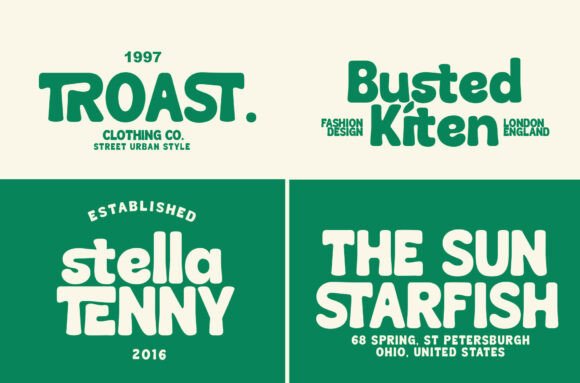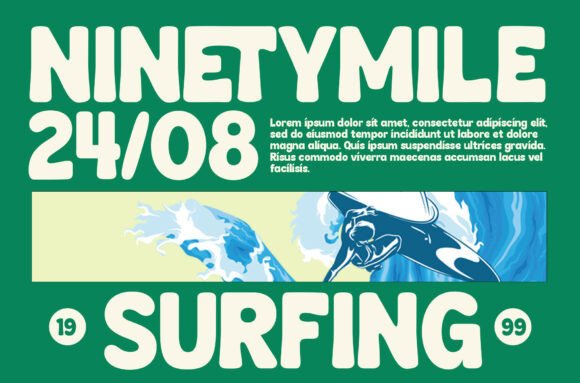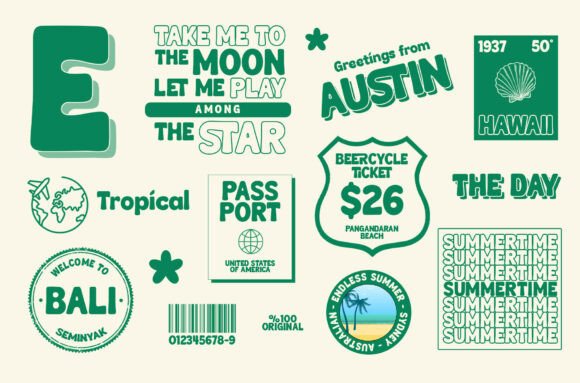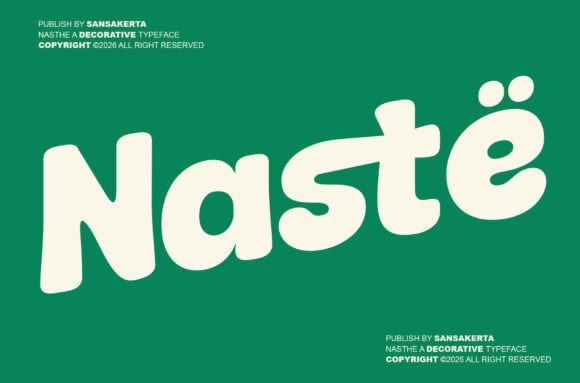
Introduction to Naste Font
Naste is a bold decorative typeface with a playful retro personality inspired by the visual aesthetics of the 70s to 90s.
Featuring chunky shapes, soft rounded corners, and organic letterforms, this font delivers a strong and eye-catching appearance perfect for modern vintage-inspired projects Designed to stand out in large sizes, Naste works beautifully across a wide range of creative applications including logos, posters, packaging, apparel branding, editorial layouts, merchandise, and social media graphics.
Key Features of Naste Font
Why Choose Naste Font?